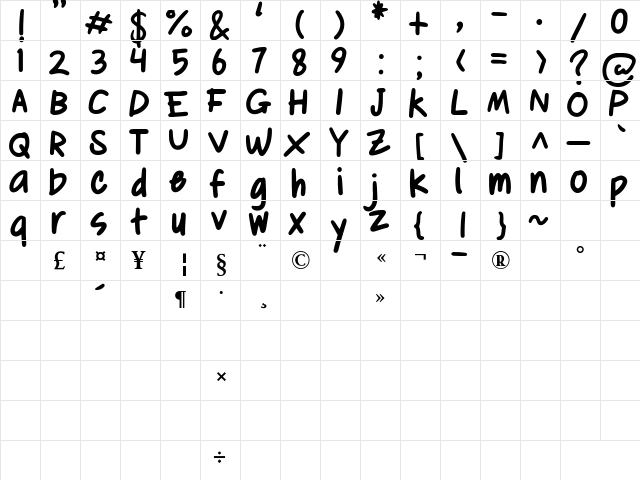
Le Lissage Bold
Design Context for Le Lissage Typeface
Le Lissage is a composed and adaptable typeface that performs quietly and consistently across a wide range of design contexts. Its bold stroke weight gives it real presence on the page.
Pro Tip: Pair Le Lissage with a font of contrasting weight or personality to build a more expressive typographic hierarchy.